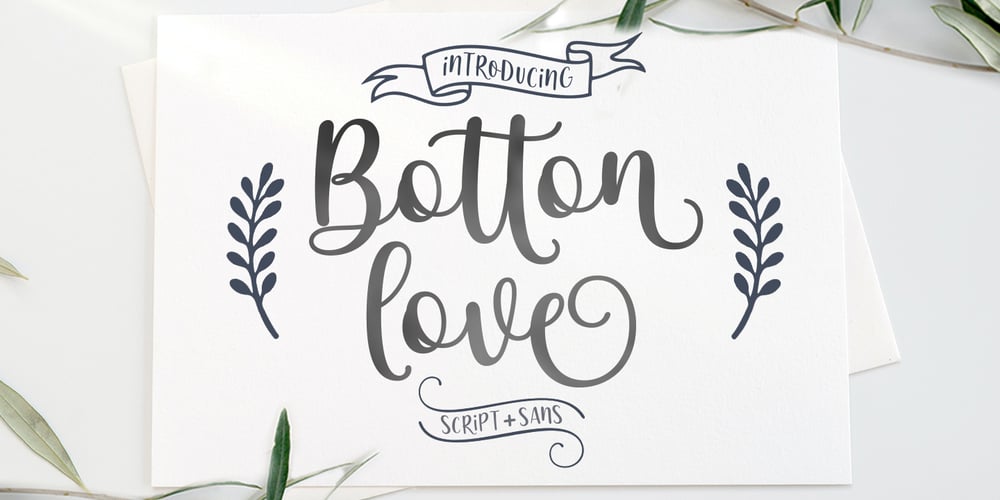
Botton Love Duo Font Family was designed by Mur Zani and published by Zane Studio. Botton Love Duo contains 2 styles and family package options. Botton Love Script Font DUO is a new modern script font with an irregular baseline. Trendy and feminine style. Botton Love Script looks beautiful in wedding invitations, thank you cards, quotes, greeting cards, logos, business cards and more. Perfect for use in inks or watercolors. Includes initial and terminal letters, alternatives and support for multiple languages.To enable the OpenType Stylistic alternative, you need a program that supports OpenType features such as Adobe Illustrator CS, Adobe Indesign & CorelDraw X6-X7, Microsoft Word 2010 or later. There are additional ways to access alternatives/swashes, using Character Map (Windows), Nexus Fonts (Windows), Font Books (Mac) or a software program such as PopChar (for Windows and Mac).How to access all alternative characters:https://www.youtube.com/watch? v = Go9vacoYmBwhttps://www.youtube.com/watch? v = XzwjMkbB-wQhttps://www.yo … need help or have any questions, please let me know. I’m happy to help ๐ Thanks & Congratulations on the Design!